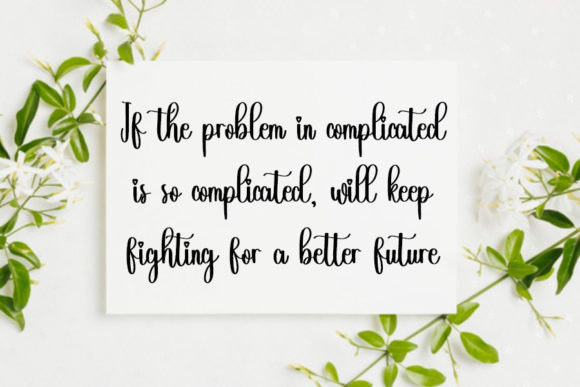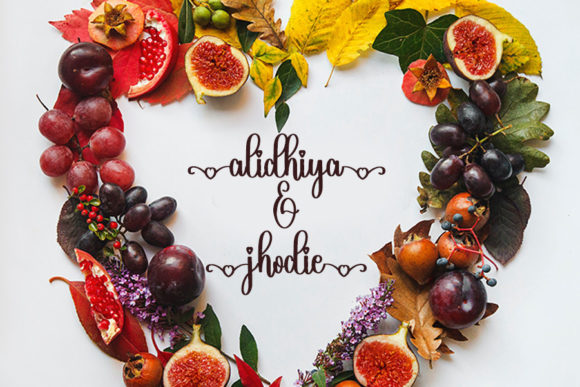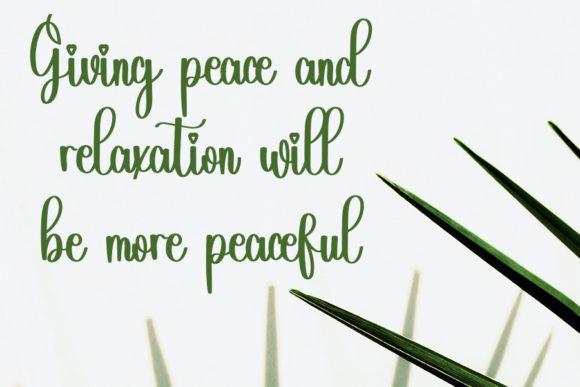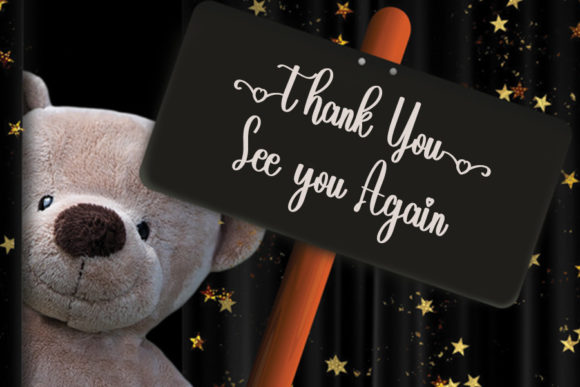
The Magic of Flowertail Font: Elevate Your Designs with Charming Script
I still remember the time I was working on a whimsical wedding invitation project, and my client requested a font that would make their special day feel like a fairytale. I scoured the internet, trying out font after font, but nothing seemed quite right. That was until I stumbled upon Flowertail Font. Its charming, playful characters seemed to dance along the baseline, and I knew I had found the perfect fit. In this article, I’ll share my love for Flowertail Font, its features, and how to make the most of it in your designs.
An Honest Review of Flowertail Font
- ✨ Playful and charming characters: Flowertail Font features beautiful, cursive script with a touch of whimsy, making it perfect for creative projects.
- ✅ PUA encoded for easy access: With PUA encoding, you can easily access all the glyphs and swashes, making it a breeze to customize your text.
- 💫 High-quality design: The font is meticulously crafted, with attention to detail and a clear focus on aesthetics.
While Flowertail Font is an amazing addition to any design project, there are a few things to keep in mind:
- ⚠️ Legibility at small sizes: As with many script fonts, Flowertail can be a bit tricky to read at very small sizes. Make sure to test it out at different sizes to ensure it’s legible for your project.
- 🤔 Pairing with other fonts: While Flowertail is stunning on its own, it can be a bit challenging to pair with other fonts. Experiment with different combinations to find the perfect match.
The Backstory of Flowertail Font
Flowertail Font was designed with the intention of creating a beautiful, whimsical script that would bring joy to designers and crafters. The designer aimed to craft a font that would evoke a sense of playfulness and elegance, perfect for creative projects. While the real story behind Flowertail’s creation might be unknown, its charm and character are undeniable.
Q: How do I pair Flowertail Font with other fonts?
Pairing Flowertail Font with other fonts can be a bit tricky, but here are some general tips: try pairing it with a clean sans-serif font for contrast, or with another script font for a more elegant look. Experiment with different combinations to find the perfect match for your project.